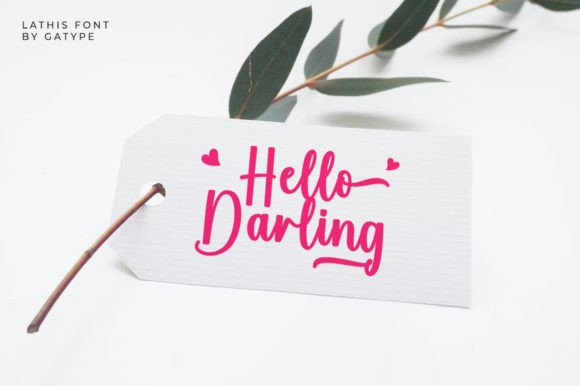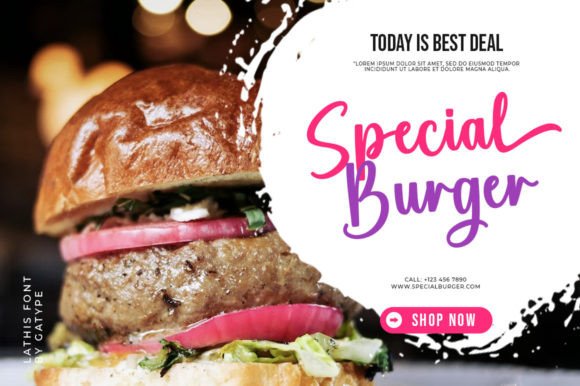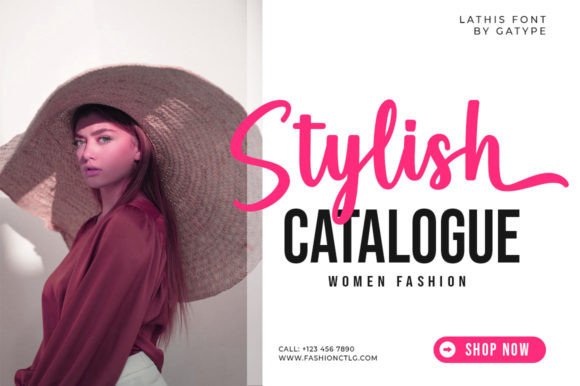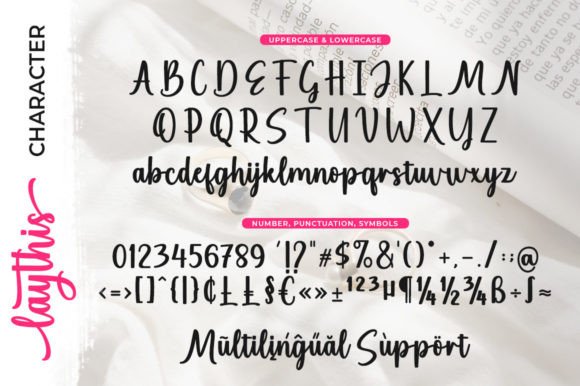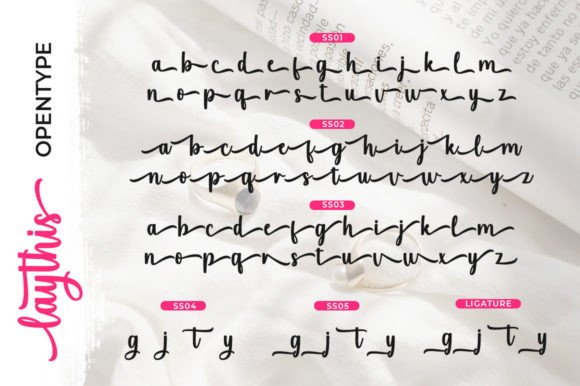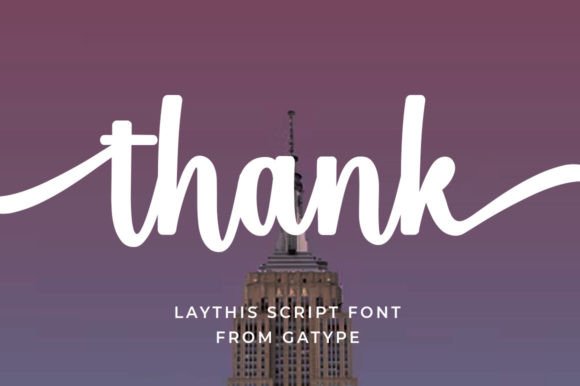
Introduction to Laythis Font
Have you ever been stuck in front of your design project, trying to find the perfect font to bring your vision to life? I know I have. There’s something magical about the moment when a font clicks, and suddenly your design transforms from ordinary to extraordinary. That’s exactly what happened when I discovered the Laythis Font – a modern signature font that’s perfect for making any design stand out.
As a designer, you understand the importance of having access to high-quality design resources. The Laythis Font is a valuable addition to any creative project, offering an elegant and modern style that’s perfect for branding, wedding invitations, magazines, and more. With its transparent background and crisp lines, this font is a must-have for any designer looking to elevate their work.
Key Features of Laythis Font
• High-quality design resource suitable for various creative projects
• Designed with a modern aesthetic, ideal for contemporary creative projects
Honest Review: Laythis Font
I recently stumbled upon the Laythis Font while searching for a design resource to enhance a creative project. The font’s unique design caught my attention, and I was excited to give it a try.
Here are the things that worked well for me:
• ✨ High-quality glyphs: The font’s glyphs are crisp and clear, making it perfect for use in various design applications.
• ✨ Transparent background: The font’s transparent background allows for seamless integration with other design elements.
• ✨ Versatile: The font can be used for a wide range of creative projects, from branding to editorial design.
• ⚠️ Limited language support: The font only supports a limited number of languages, which may be a drawback for designers working on projects that require multi-language support.
• ⚠️ Not ideal for small text sizes: The font may not be suitable for use in small text sizes, as the glyphs can become blurry and difficult to read.
Getting the Most Out of Laythis Font
For the best results, use Laythis Font with a transparent background to create a subtle look. Experiment with different font sizes and styles to find the perfect fit for your creative project.